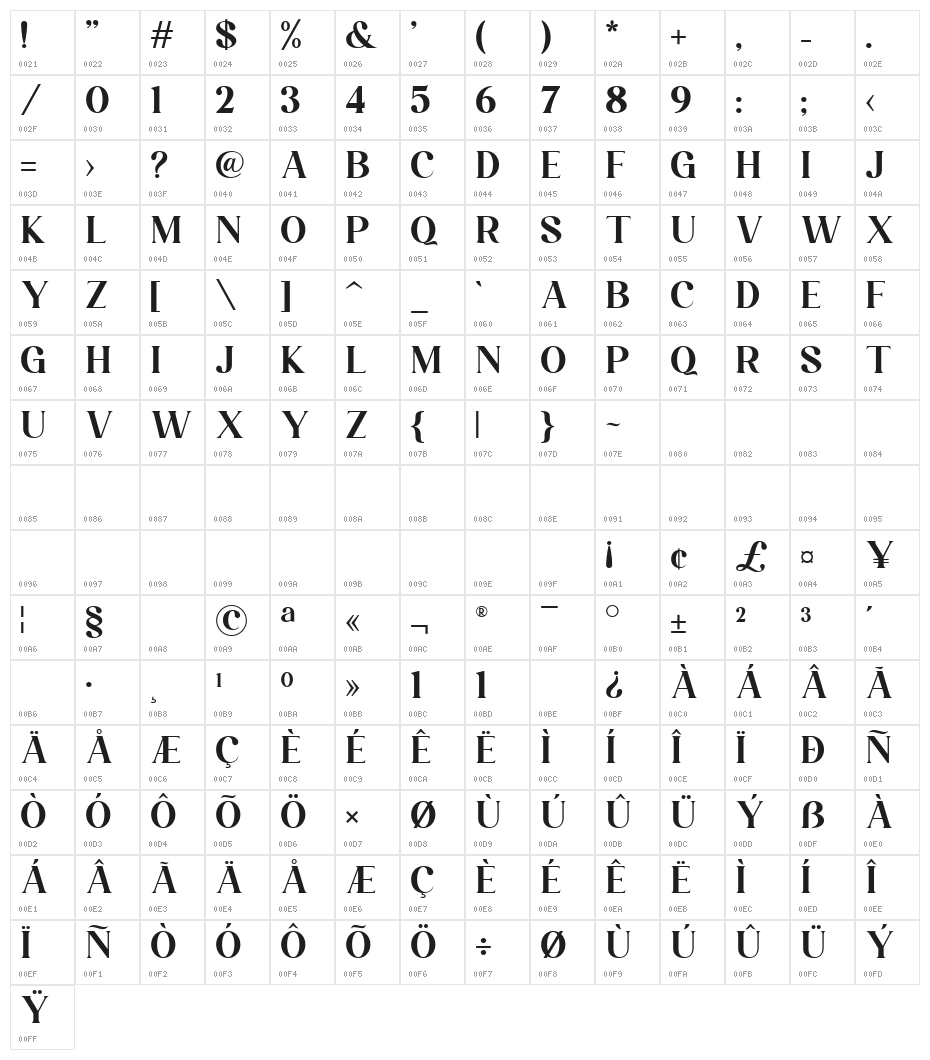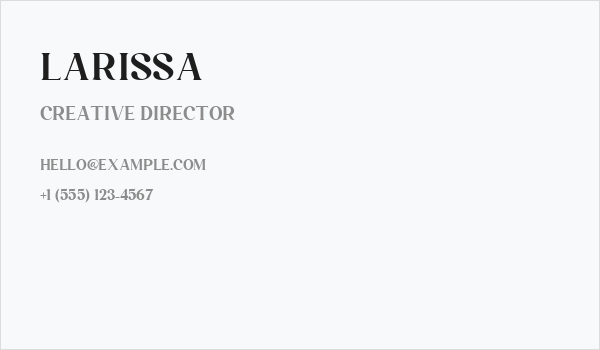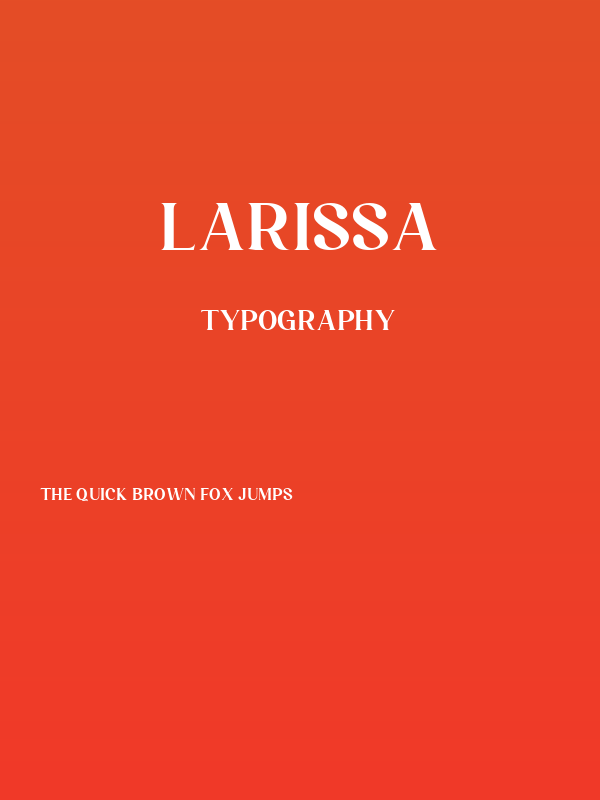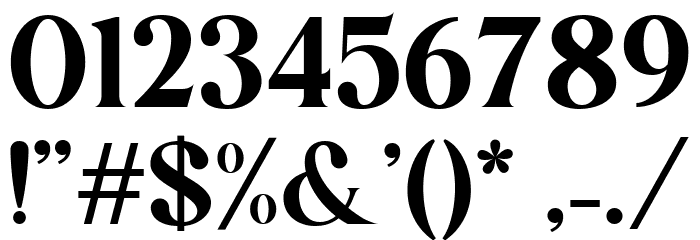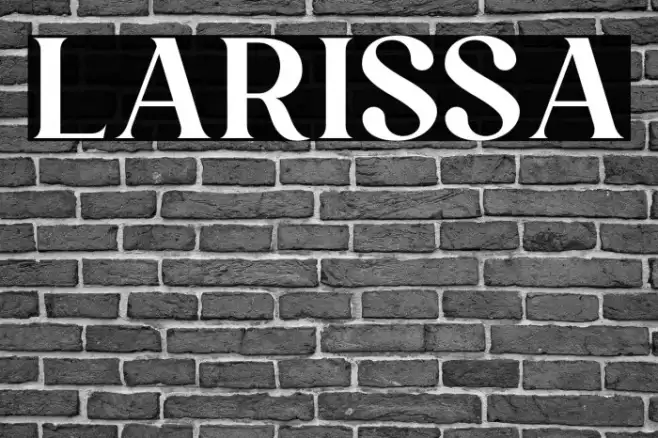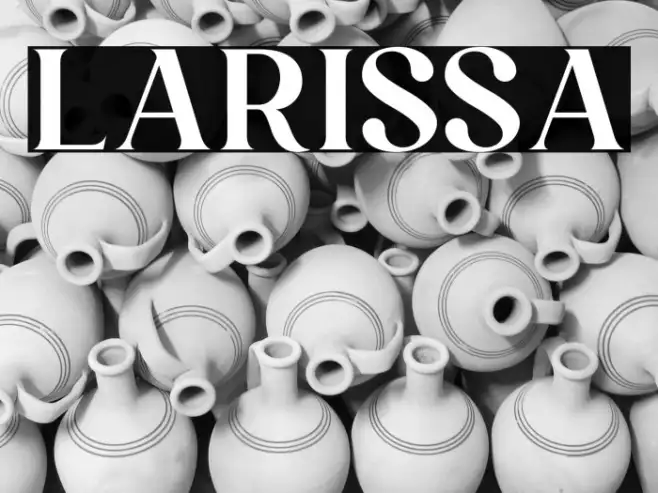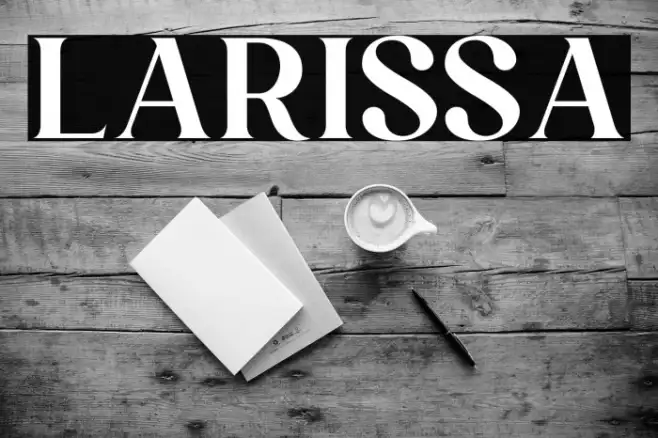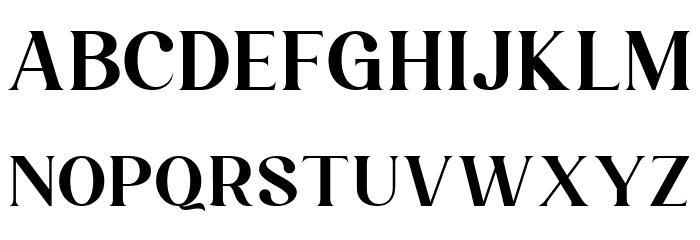
Larissa Font
Larissa Description
This font features a bold and elegant serif style, characterized by its strong, thick strokes and high contrast between thick and thin lines. The serifs are pronounced and add a classic touch to the overall design. The uppercase letters are tall and commanding, while the lowercase letters maintain a balanced proportion, ensuring readability. The numerals are equally bold, with a consistent style that matches the alphabet. Special characters are designed with the same attention to detail, making them suitable for a variety of uses. The overall appearance is sophisticated and timeless, making it ideal for projects that require a touch of elegance.
| Use Case | Headlines, Logos, Editorial design |
| Proposed Projects | Ideal for book covers, luxury branding, editorial design, and formal invitations. |